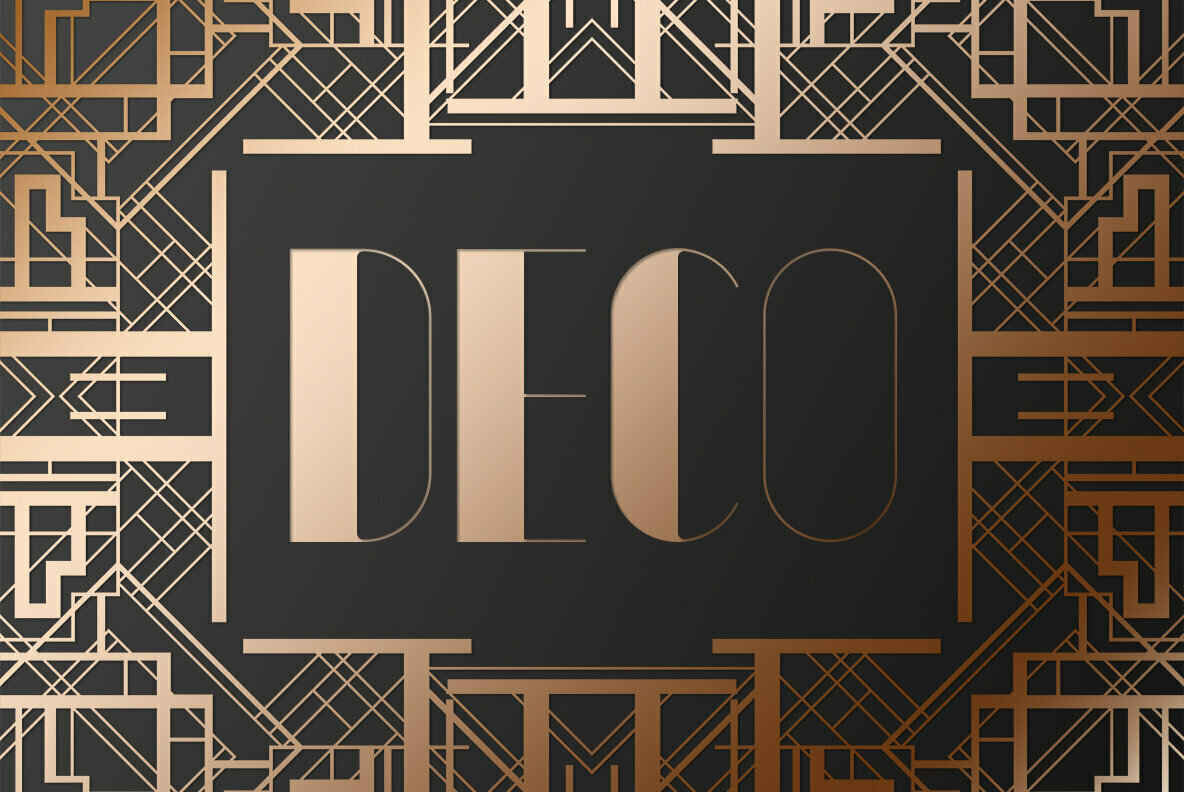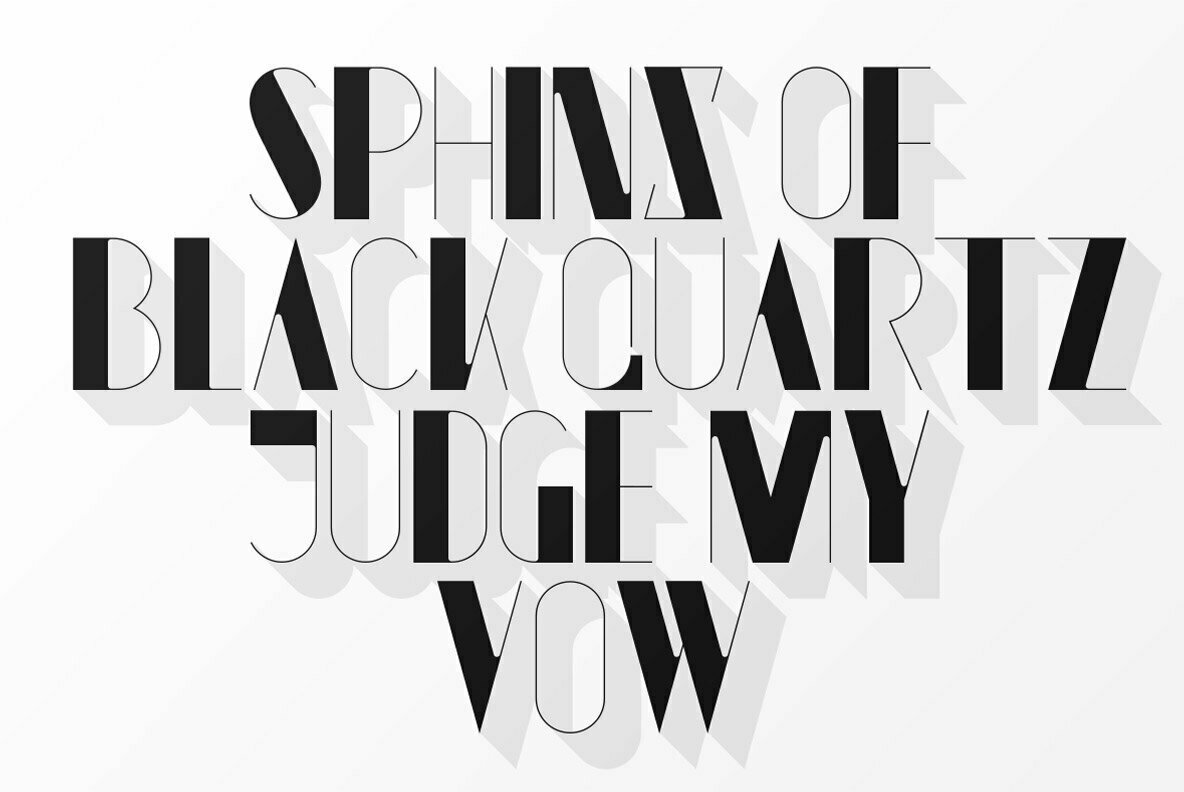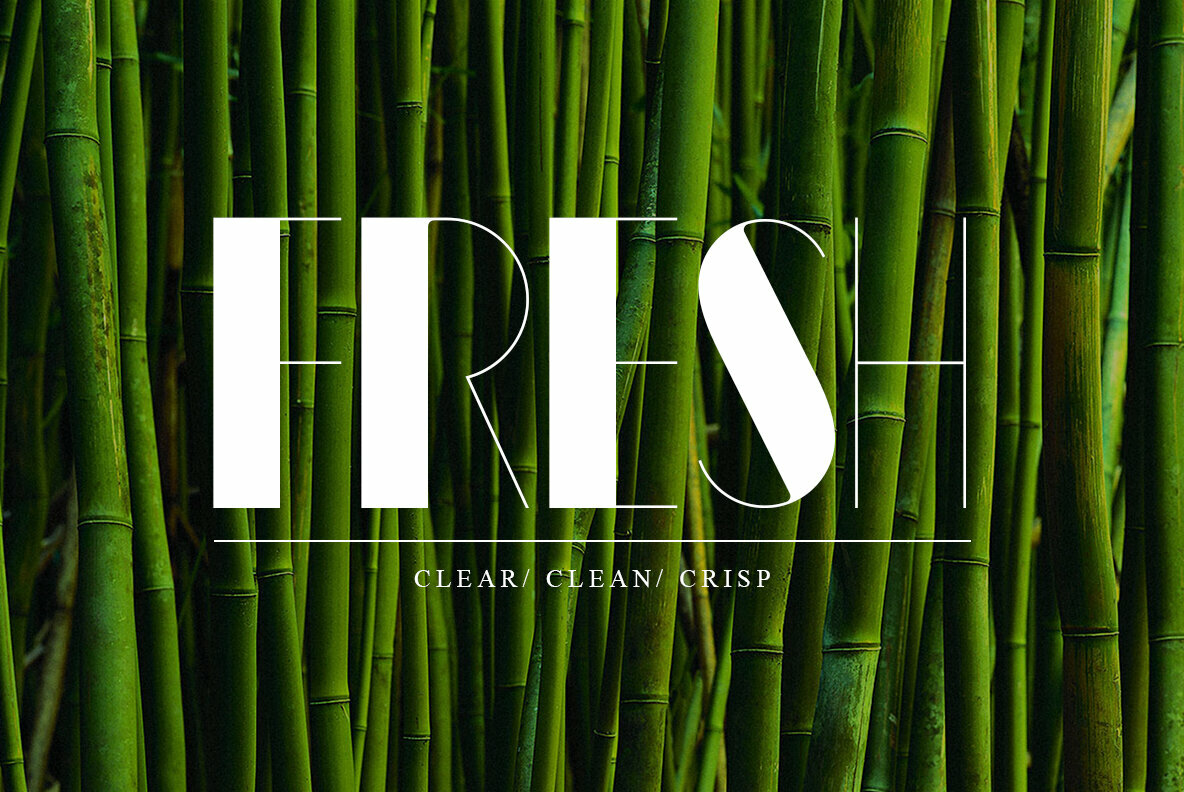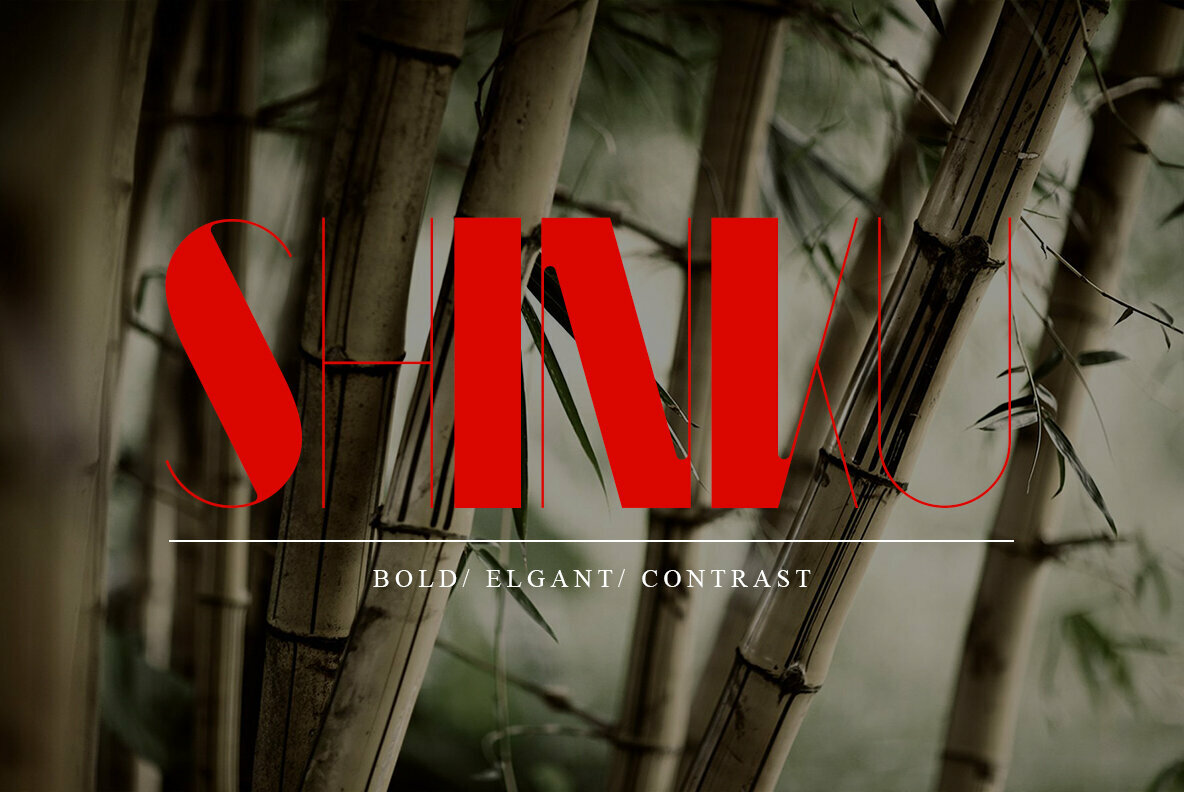
Kaiju II Font
Kaiju II
Kaiju II is a revamp of a previous typeface, due to its playful versatility, we didn't skip on the chance to add to its beauty. Kaiju's high-contrast aesthetics focus on the balance and distribution of weight.
As a Display font, it is entirely Uppercase with Alternates for each letter, allowing the user to mix and match where they see fit. With slender lines and easy legibility, this elegant, art deco typeface is a great introduction of style to any project.